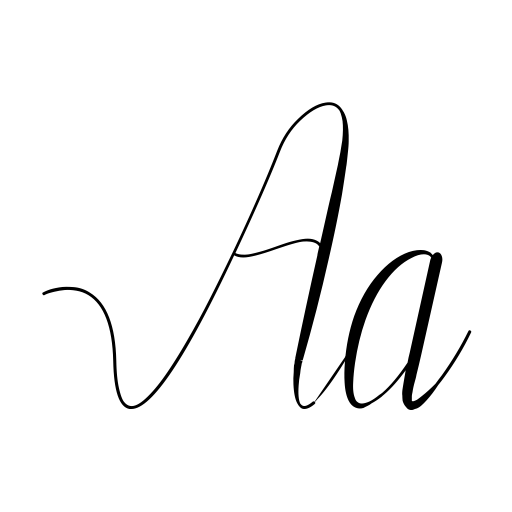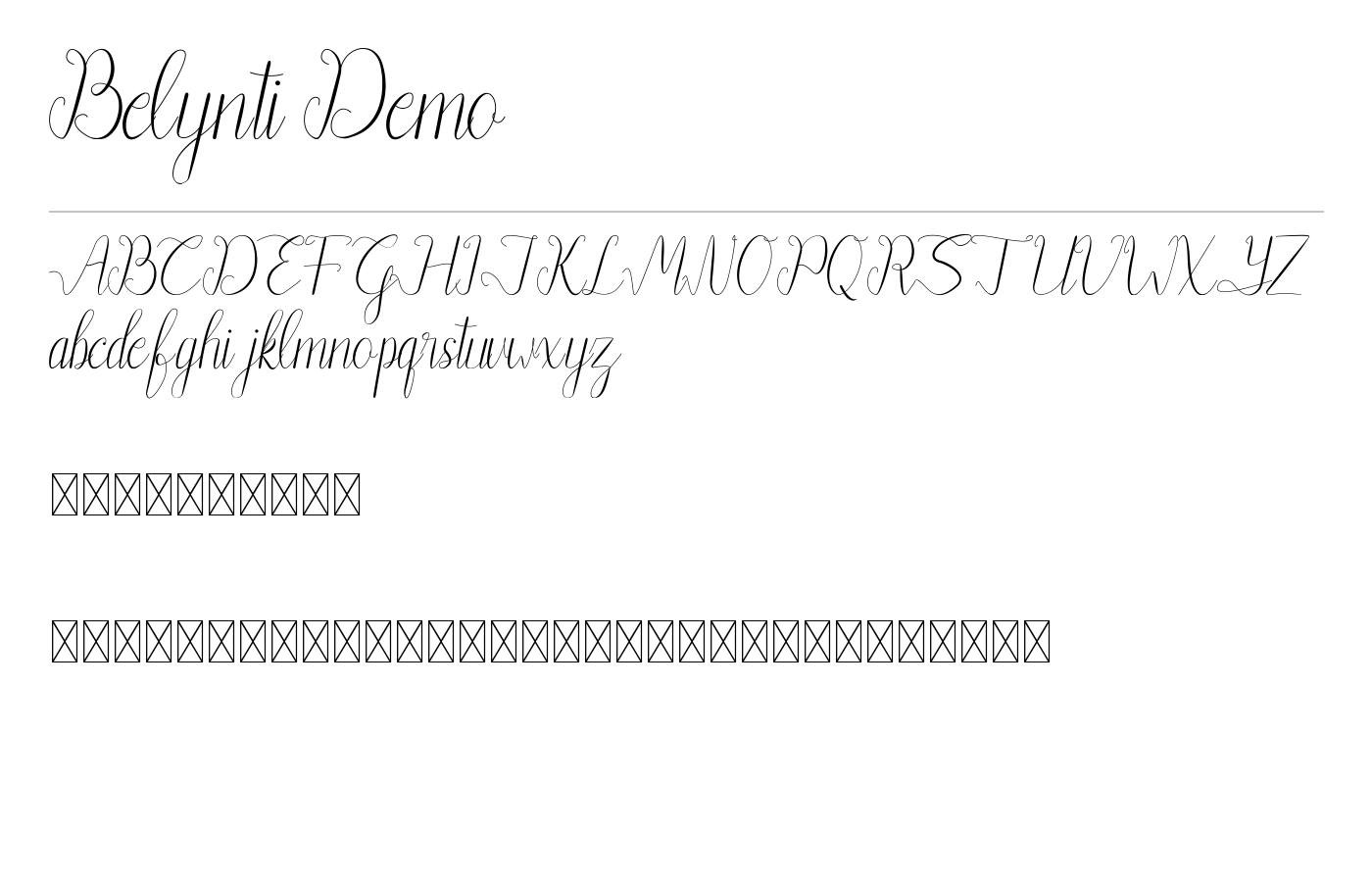
Belynti Demo is an elegant, delicate script font characterized by its slender, flowing letterforms and refined calligraphic style. Its light weight and tall x-height give it a graceful, airy appearance, making it perfect for sophisticated invitations, luxury branding, and stylish headlines where a touch of refined femininity is desired. This font works best in decorative and display contexts, adding a sense of charm and elegance without overwhelming the design.
Belynti Demo Font